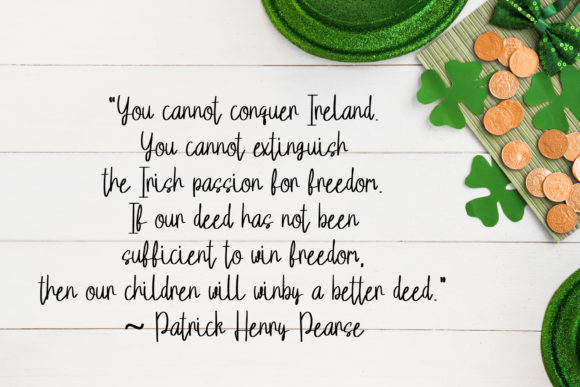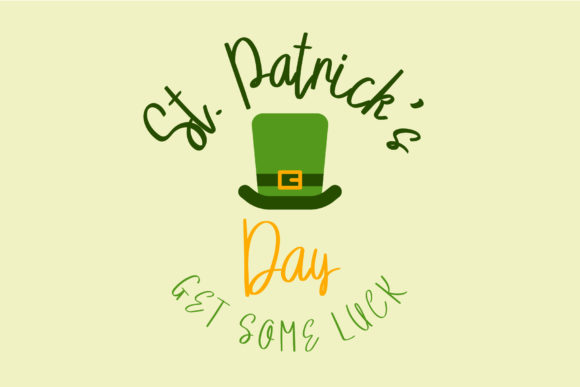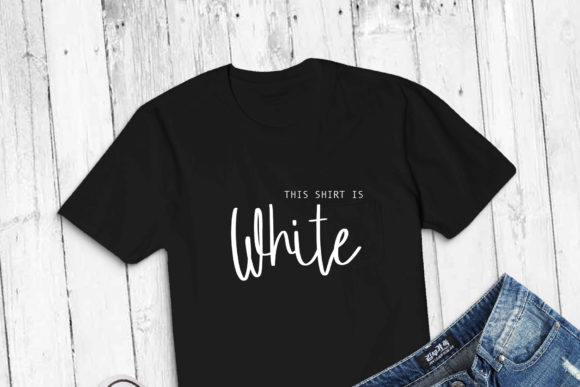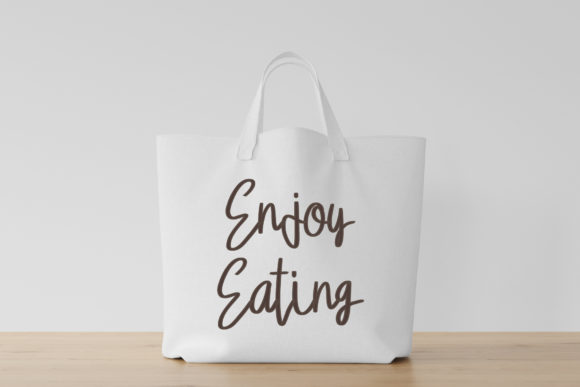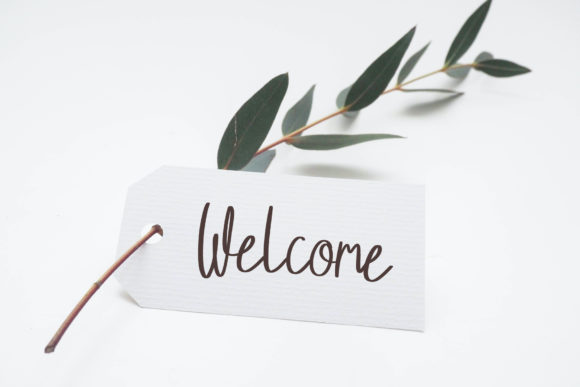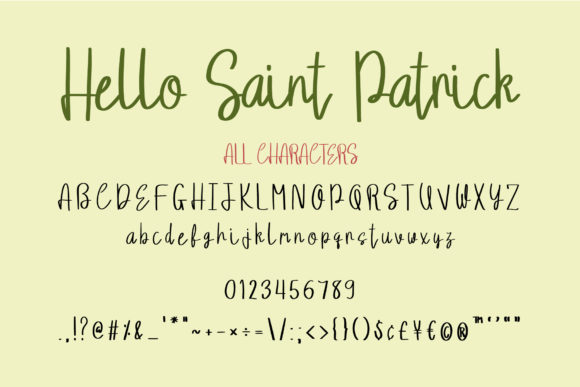
Introduction to Hello Saint Patrick Font
As a designer, there’s nothing quite like the thrill of landing on the perfect font for a project. It’s like stumbling upon a hidden treasure – one that elevates the entire design and leaves a lasting impression. I still remember the moment I discovered the Hello Saint Patrick Font, and I knew I had to share it with fellow creatives.
This stylish and delicate script font boasts a clean, thin, and smooth vibe that’s perfect for adding a touch of elegance to any design. With its transparent background and high-quality design, it’s a versatile resource that’s sure to be a hit in any creative project.
Key Features of Hello Saint Patrick Font
- Unique and festive design, perfect for creative projects and celebrations.
- High-quality font with transparent background, ideal for use on various backgrounds and designs.
- Perfect for use in St. Patrick’s Day-themed designs, Irish-inspired projects, and other creative endeavors.
Honest Review: Hello Saint Patrick Font
I recently stumbled upon the Hello Saint Patrick Font, and I must say it’s been a game-changer for my creative projects. This free download has become a staple in my design resource arsenal.
What works well with this font is its versatility. It’s perfect for titles, headings, and even body text. The transparent background option gives me the flexibility to use it with any background design, which is a huge plus.
The font’s high quality is evident in its crisp lines and smooth curves. It’s a great choice for designers looking to add a touch of elegance to their designs.
While the Hello Saint Patrick Font is an excellent resource, I do have to mention a few limitations. The font is only available in a few weights, which may limit its use in more complex designs.
Overall, I’m thoroughly impressed with the Hello Saint Patrick Font. Its simplicity and versatility make it a great addition to any designer’s toolkit. If you’re looking for a high-quality font to elevate your designs, I highly recommend giving this one a try.
Tips for Getting the Most Out of Hello Saint Patrick Font
Here are some tips to get the most out of the Hello Saint Patrick Font:
- Use the font in combination with other design elements to create a visually appealing design.
- Experiment with different font sizes and colors to create contrast and emphasis.
- Use the font in a variety of creative projects, such as invitations, posters, and social media graphics.
The Hello Saint Patrick Font is commonly used in various design projects, including:
- Invitations and party decorations
- Social media graphics and banners